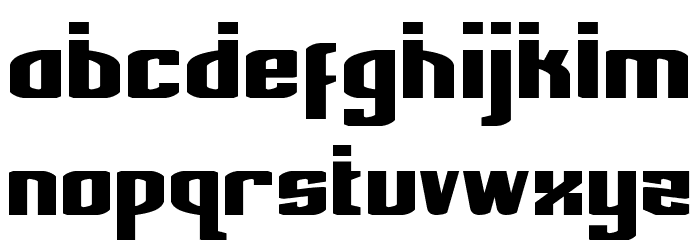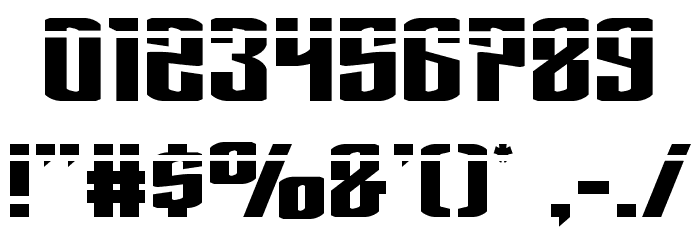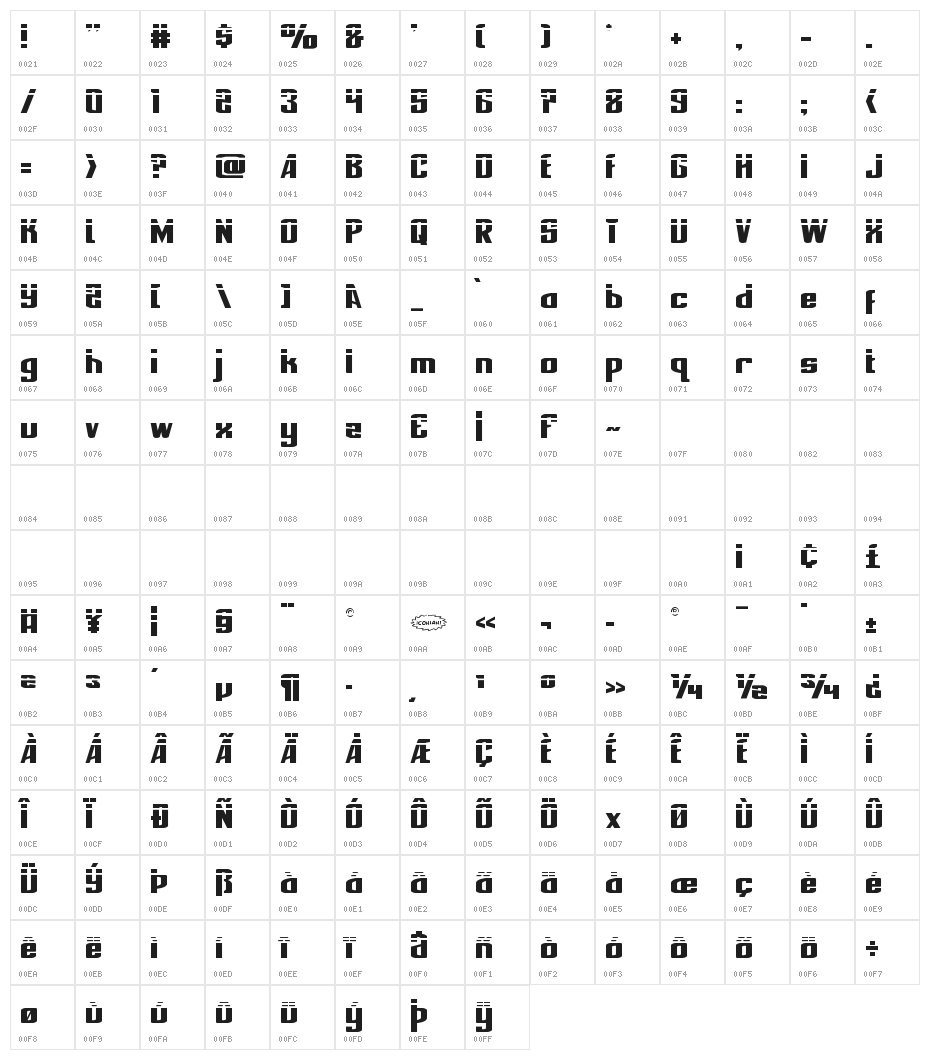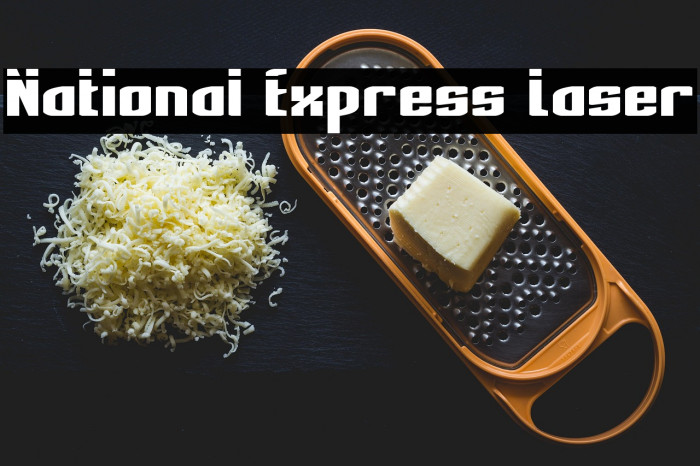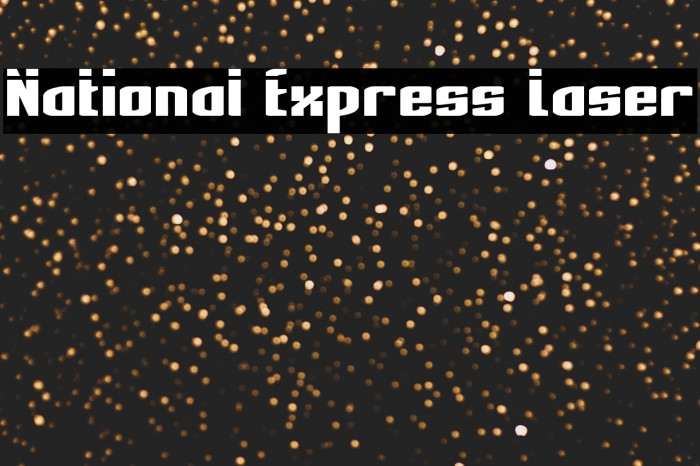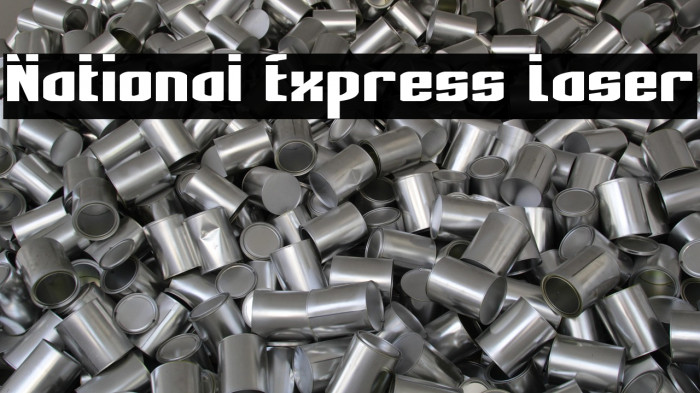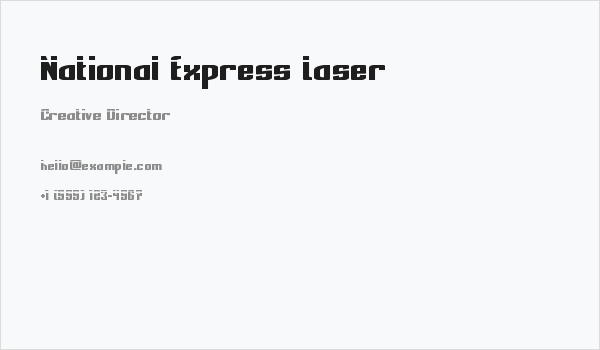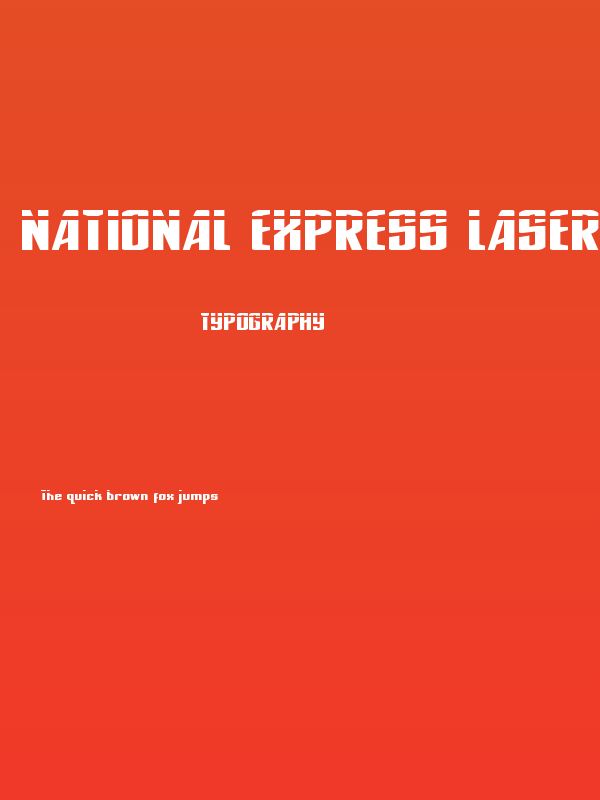
National Express Laser Font
This font presents a bold and striking appearance with its geometric and angular design. The uppercase letters are characterized by sharp edges and a futuristic style, while the lowercase letters maintain a consistent boldness with slightly softer curves. The numbers and special characters follow the same bold and angular theme, making them stand out prominently. The overall design is reminiscent of a digital or technological aesthetic, suitable for modern and dynamic visual projects.
- Proposed Projects: Ideal for technology branding, video game titles, sci-fi movie posters, and modern digital interfaces.